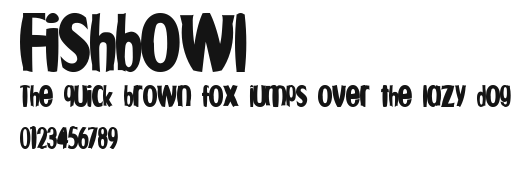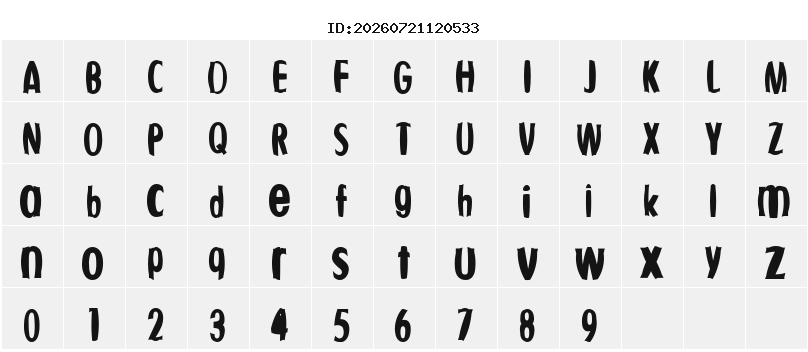
• Font Name: Fishbowl
About Fishbowl.ttf
Fishbowl.ttf is a modern, elegant sans-serif font designed for ultimate readability and visual harmony. Perfect for branding, headlines, web design, and print materials.